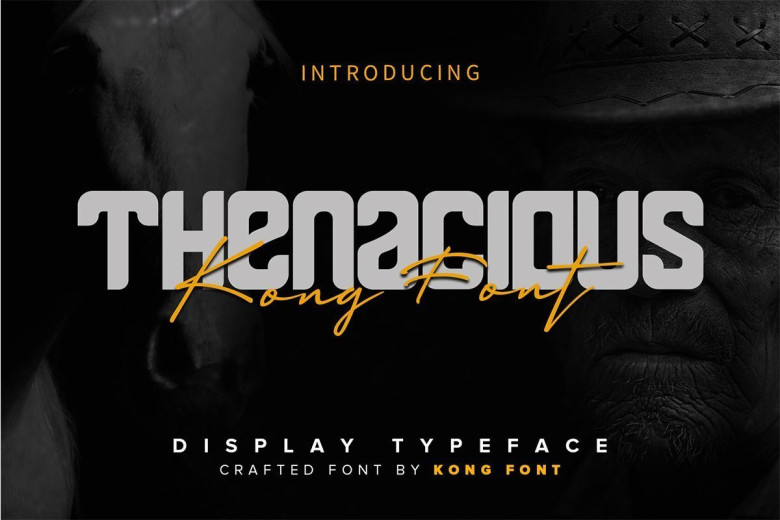
Thenacious Display Font
Thenacious Font is clean, modern typeface with display and script versions, ligatures and multilingual support. It’s a very versatile font that works great in large and small sizes.
Thenacious Font is perfect for branding projects, home-ware designs, product packaging, magazine headers – or simply as a stylish text overlay to any background image.